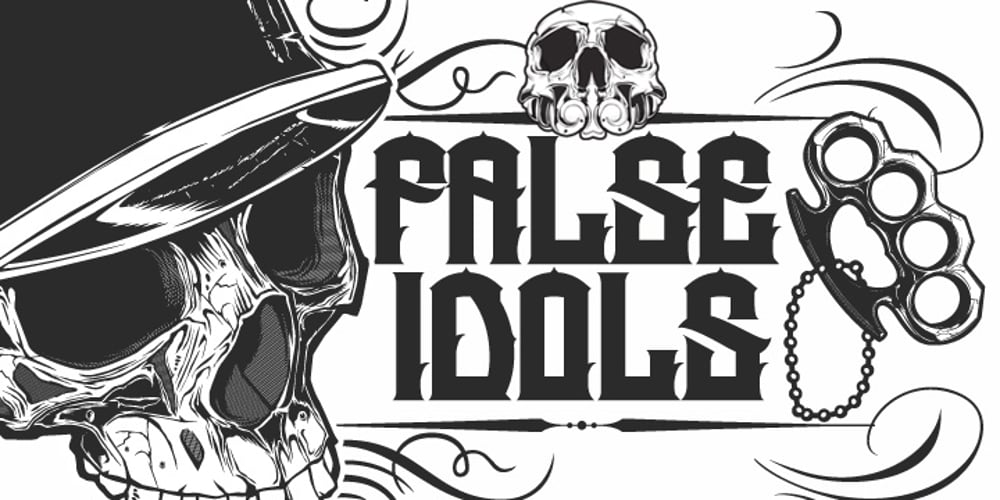
H74 False Idols
H74 False Idols font
H74 False Idols Font Family was designed by Joshua M. Smith and published by Hydro74. H74 False Idols contains 2 styles and family package options. False Idols is a Latino inspired structure with a hint of tattoo inspired culture.